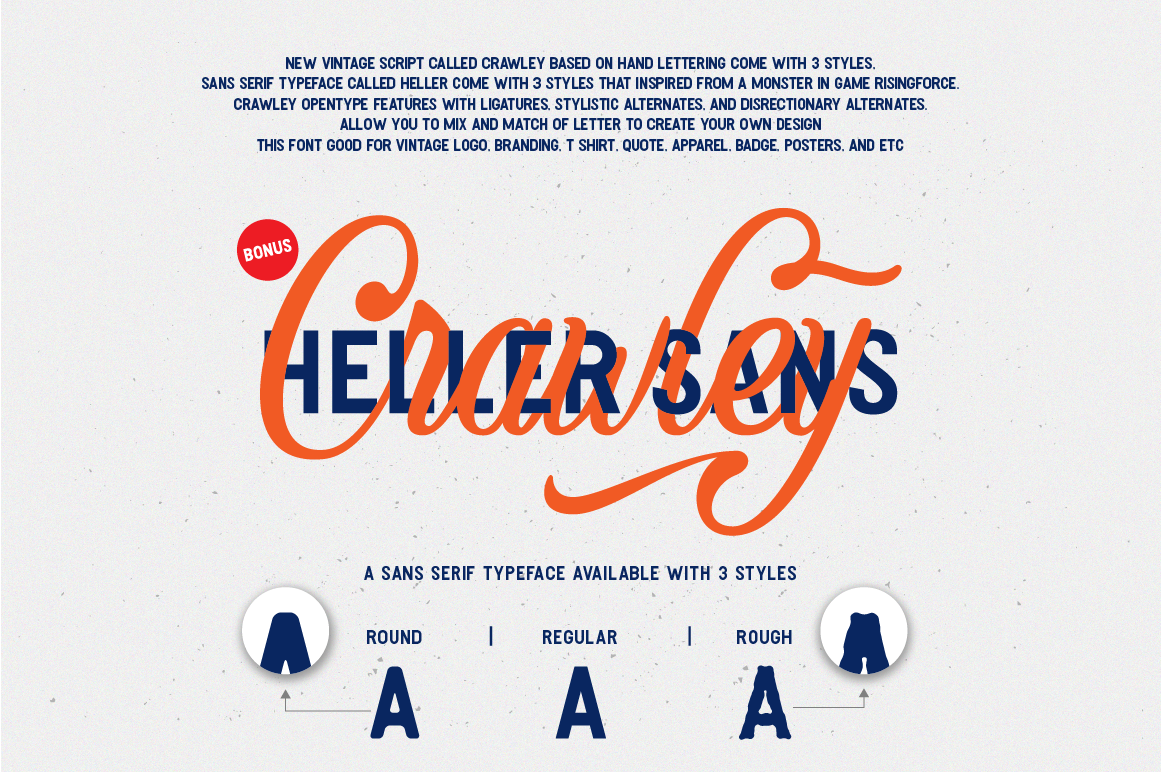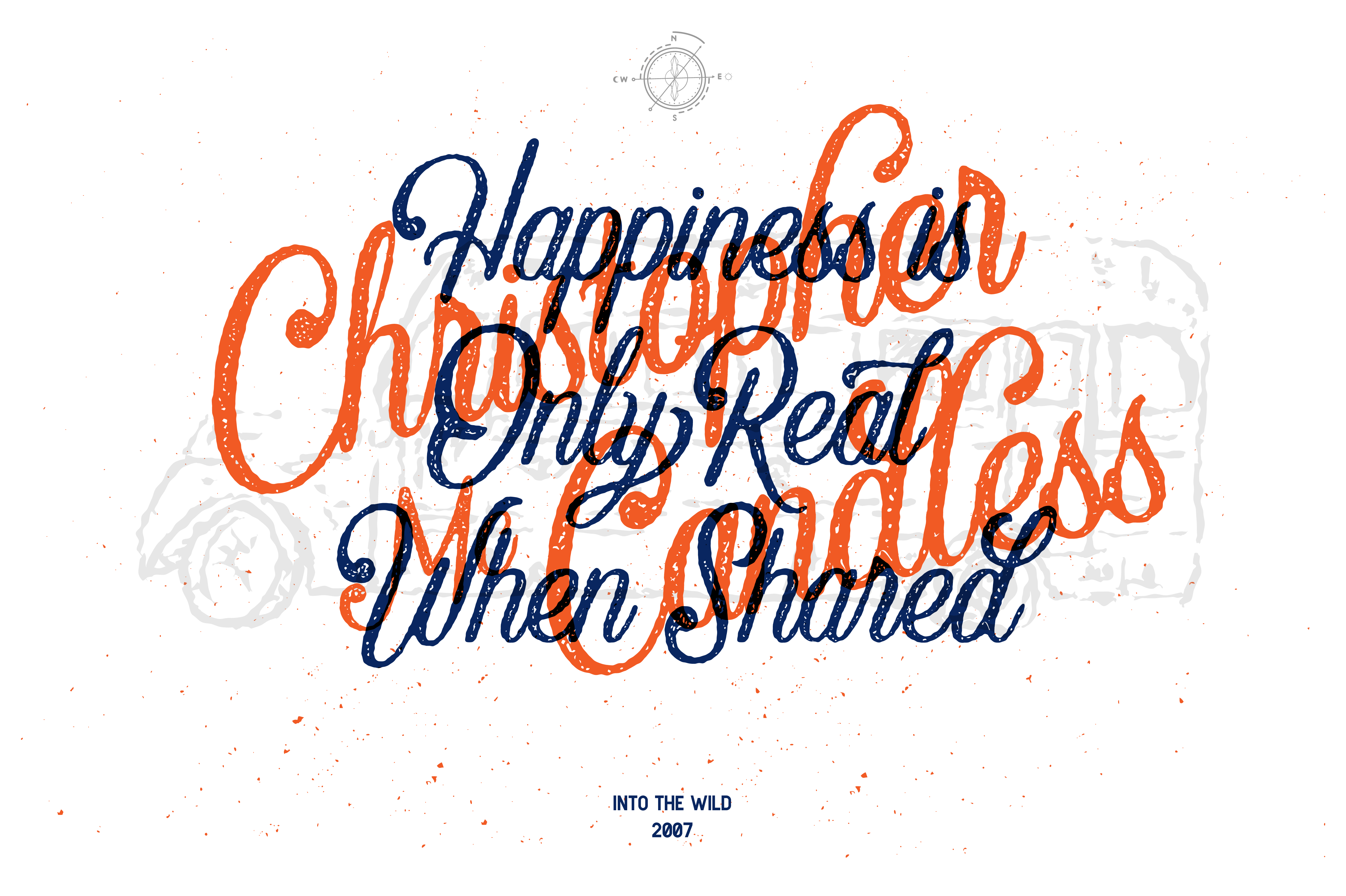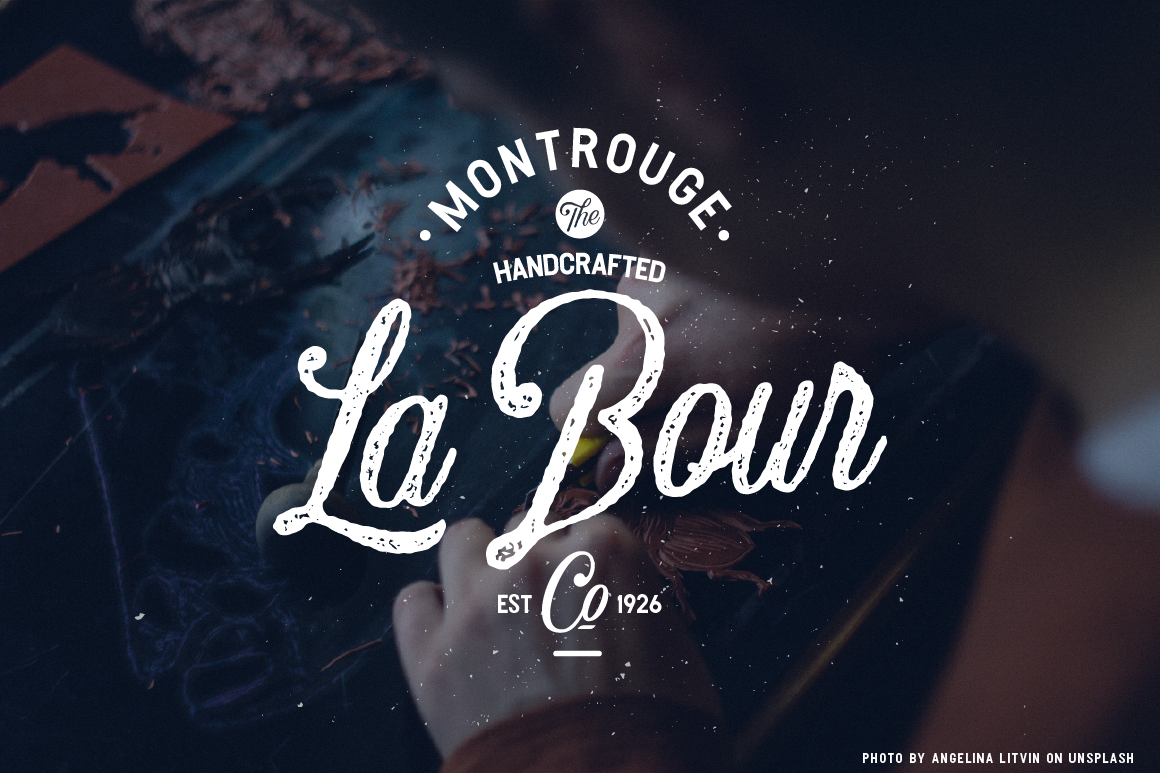
The Crawley Free Font
The Crawley Free Font is a vintage script based on our hand lettering, created carefully to make a good flow and make you feel something, this font inspired by the old American packaging, signs, and labels. This free typeface was designed by a talented Angin Studio. If you like it don’t forget to check out the full version.